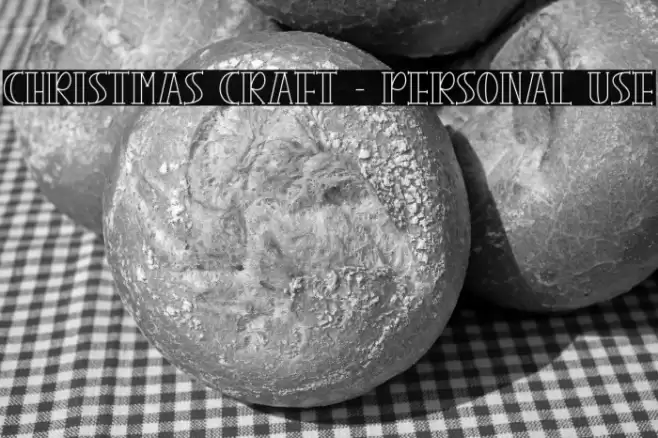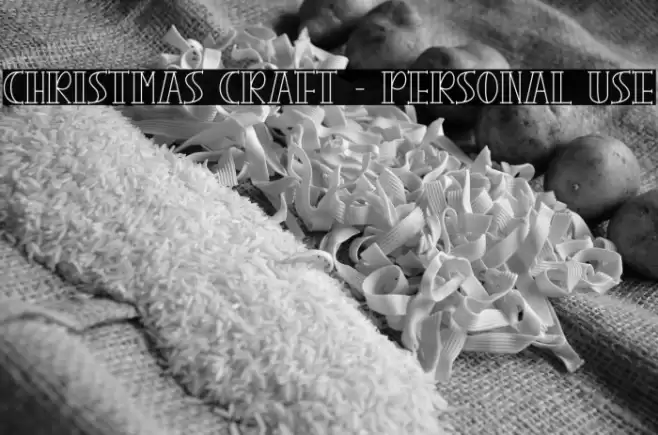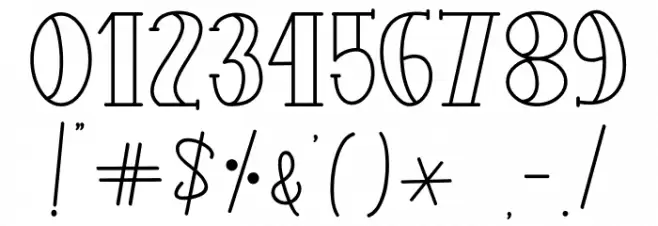
CHRISTMAS CRAFT - Personal Use Font
CHRISTMAS CRAFT - Personal Use Description
This font features a unique and decorative style with elongated and narrow letterforms. The uppercase letters have a distinct geometric flair, with sharp angles and a sense of symmetry that adds to its elegance. The lowercase letters maintain this geometric theme, offering a cohesive look across both cases. The numerals are similarly styled, with a consistent height and width that complements the alphabet. Special characters are included, each designed to match the overall aesthetic. The font's thin strokes and high contrast give it a refined and sophisticated appearance, making it ideal for decorative purposes.
A decorative font with geometric, elongated letterforms and high contrast strokes from Uncategorized fonts.
- Proposed Projects: Ideal for holiday-themed designs, greeting cards, invitations, and decorative signage.